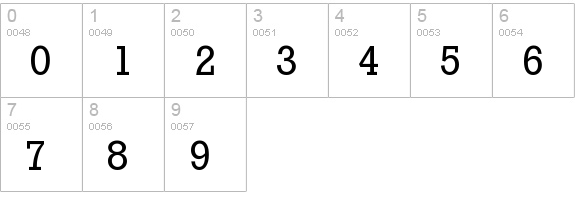
StaffordSerial-Regular is the standard, neutral variant in the StaffordSerial typeface family \xE2\x80\x94 well suited to general body text, paragraphs, and standard typographic work.
StaffordSerial-Regular is a versatile and elegant font that exudes a timeless appeal. Its clean lines and classic design make it suitable for a wide range of projects, from branding to editorial design. The font features a perfect balance of sharp edges and smooth curves, creating a harmonious and sophisticated look. What makes StaffordSerial-Regular even more appealing is that it is available for free download at FontsMarket.com. This means that you can easily access this high-quality font without any cost, making it a valuable addition to your font collection. Whether you are a designer looking for a reliable go-to font or a creative individual seeking to elevate your projects, StaffordSerial-Regular is sure to meet your needs with its effortless style and readability. Download it today and enhance your designs with this exceptional typeface.